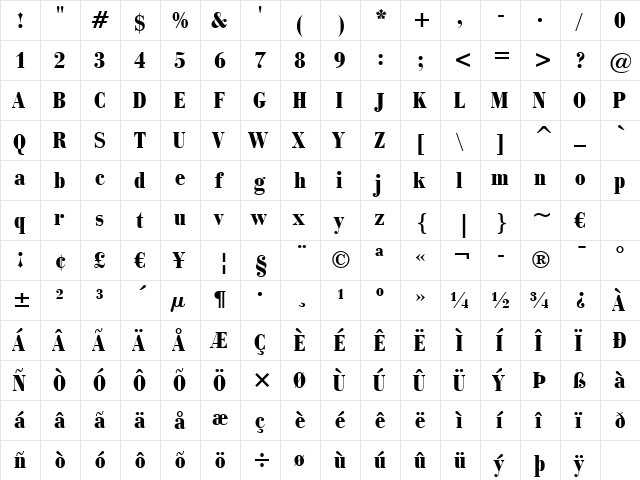
BauerBodni BlkCn BT Black
Design Context for BauerBodni BlkCn BT Typeface
BauerBodni BlkCn BT is a composed and adaptable typeface that performs quietly and consistently across a wide range of design contexts.